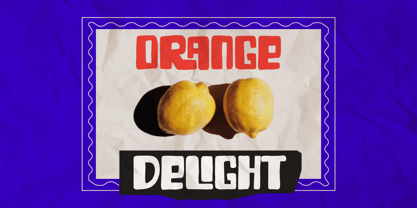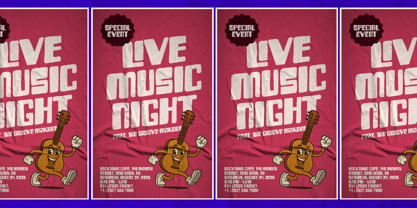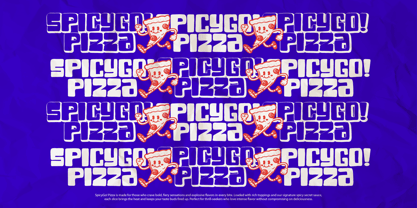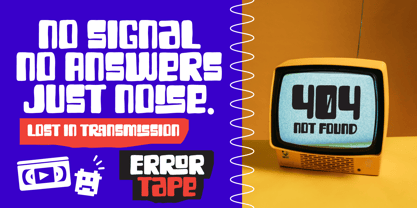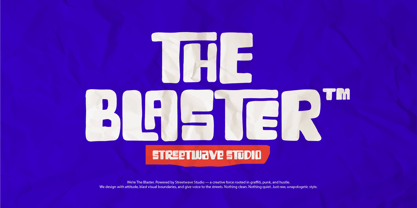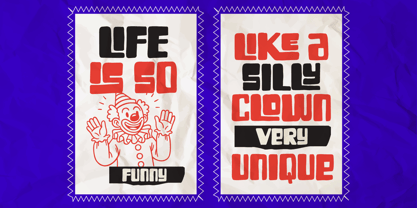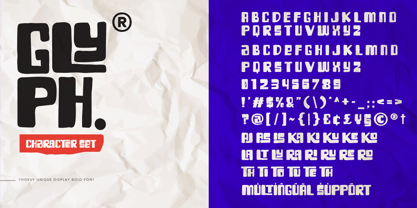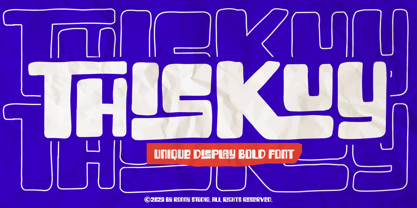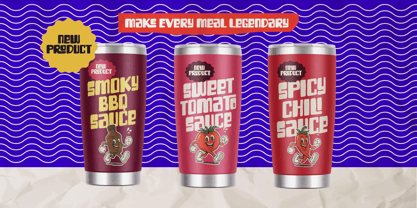
Thiskuy
by Ronny Studio
The Thiskuy Font Family was designed by Rony Rizki Jaya and published by Ronny Studio. Thiskuy contains 1 styles.
Bring your designs to life with Thiskuy, a bold and playful display font that blends modern curves with a retro soul. Its strong personality and dynamic shapes make it perfect for eye-catching headlines, striking posters, and impactful branding. Packed with a variety of unique ligatures, Thiskuy offers endless creative possibilities—allowing each word to feel fresh, fun, and custom-made. Whether you’re aiming for a quirky, energetic vibe or a bold statement, Thiskuy delivers a look that’s both memorable and versatile.